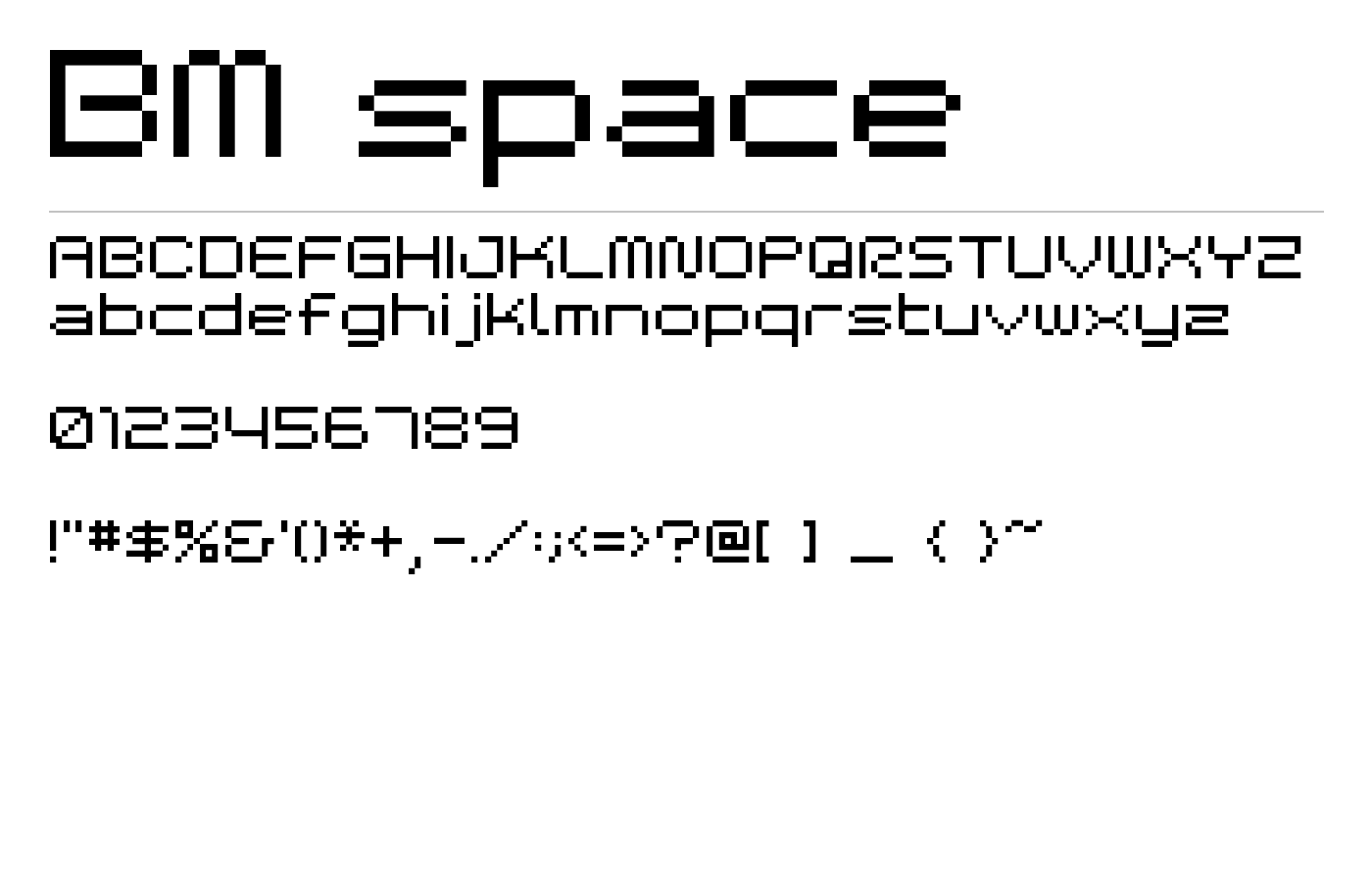
BM Space is a pixelated sans serif font that evokes a retro digital or video game aesthetic with its sharp, blocky letterforms and uniform stroke weight. Its condensed width and monospaced-like spacing make it perfect for tech, gaming, or science fiction themes, offering a clean yet nostalgic feel that works well in headlines, logos, and digital interfaces. This font's minimalist design adds a modern edge while clearly communicating a sense of precision and simplicity.
BM space Font